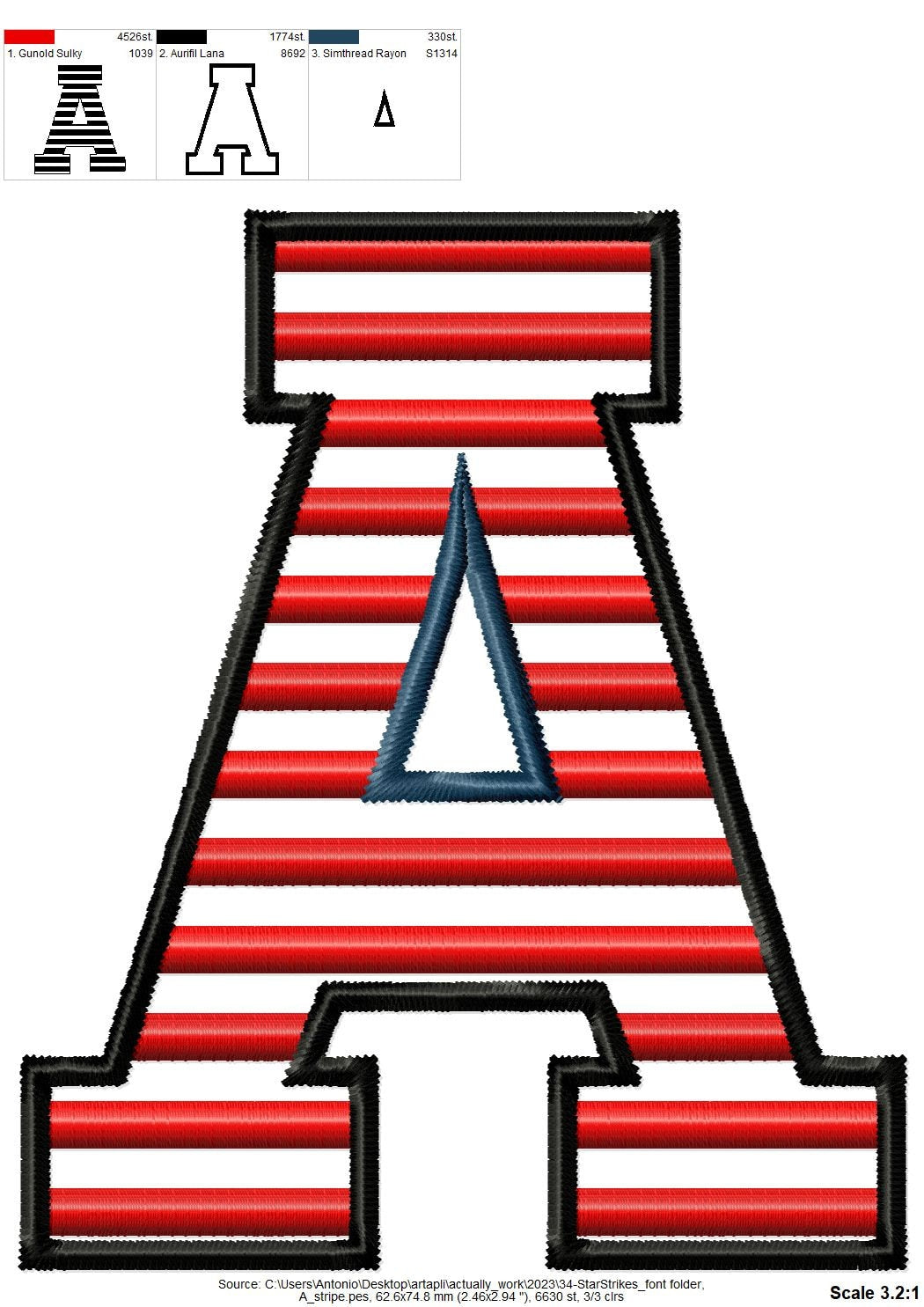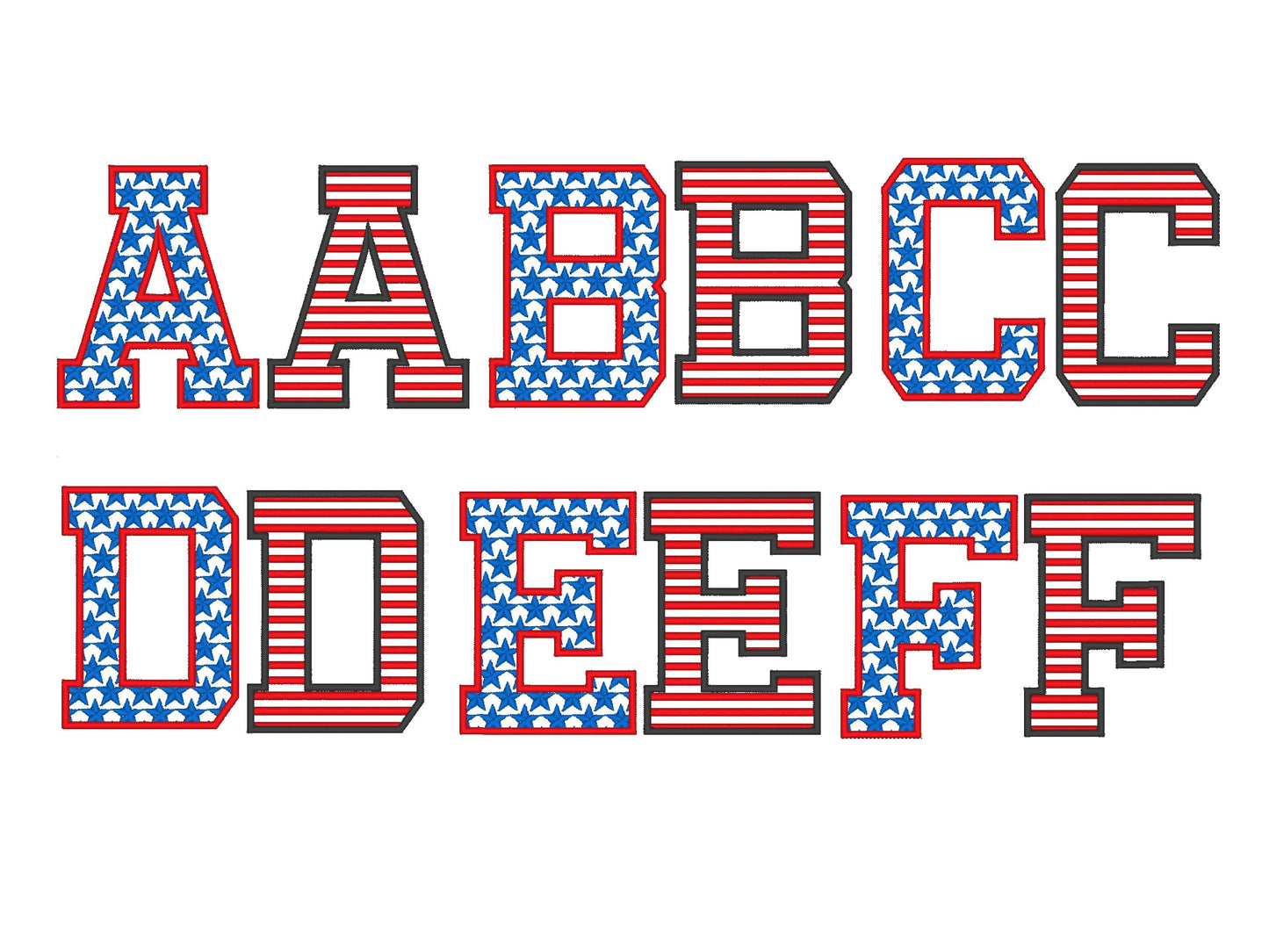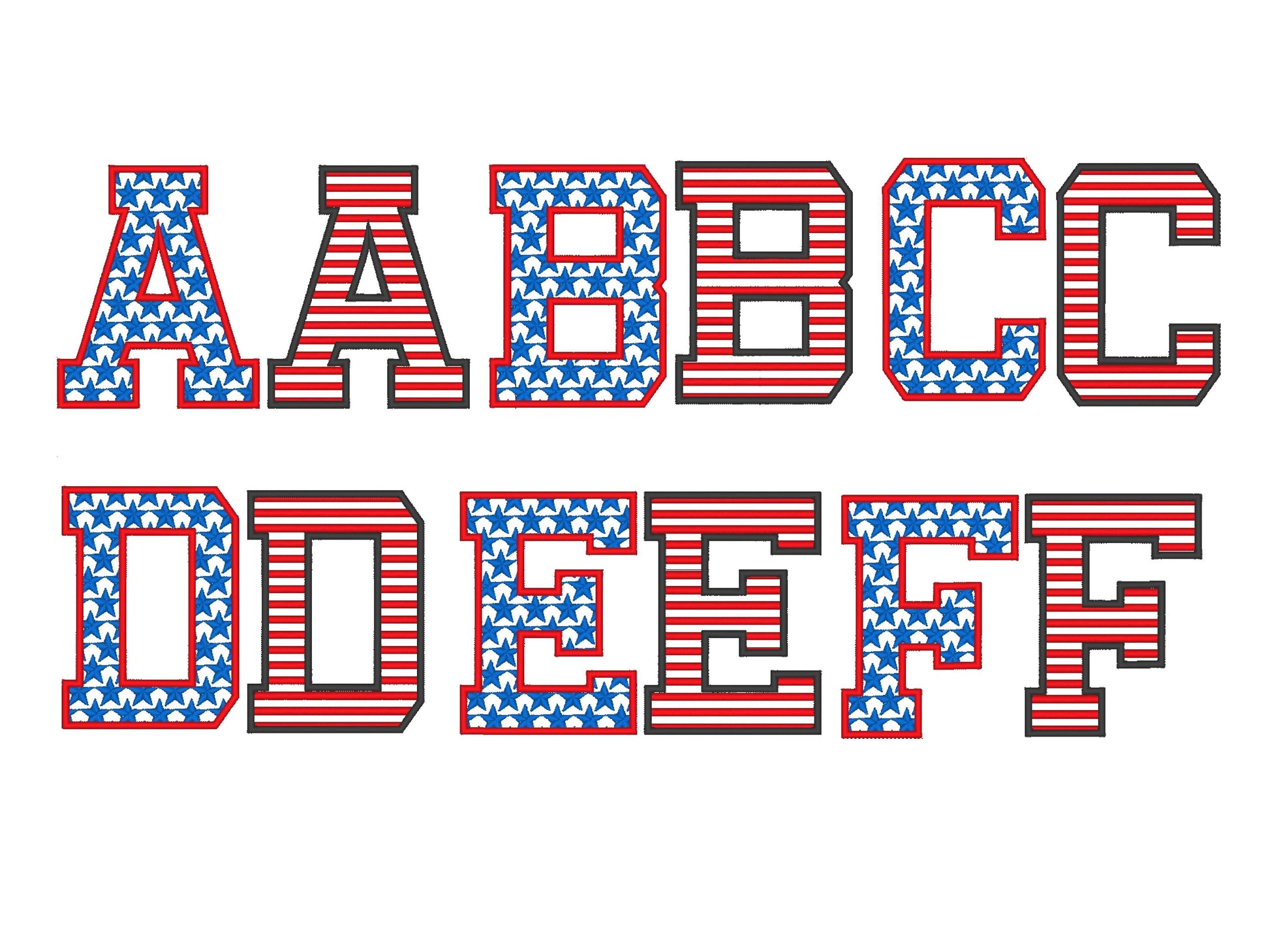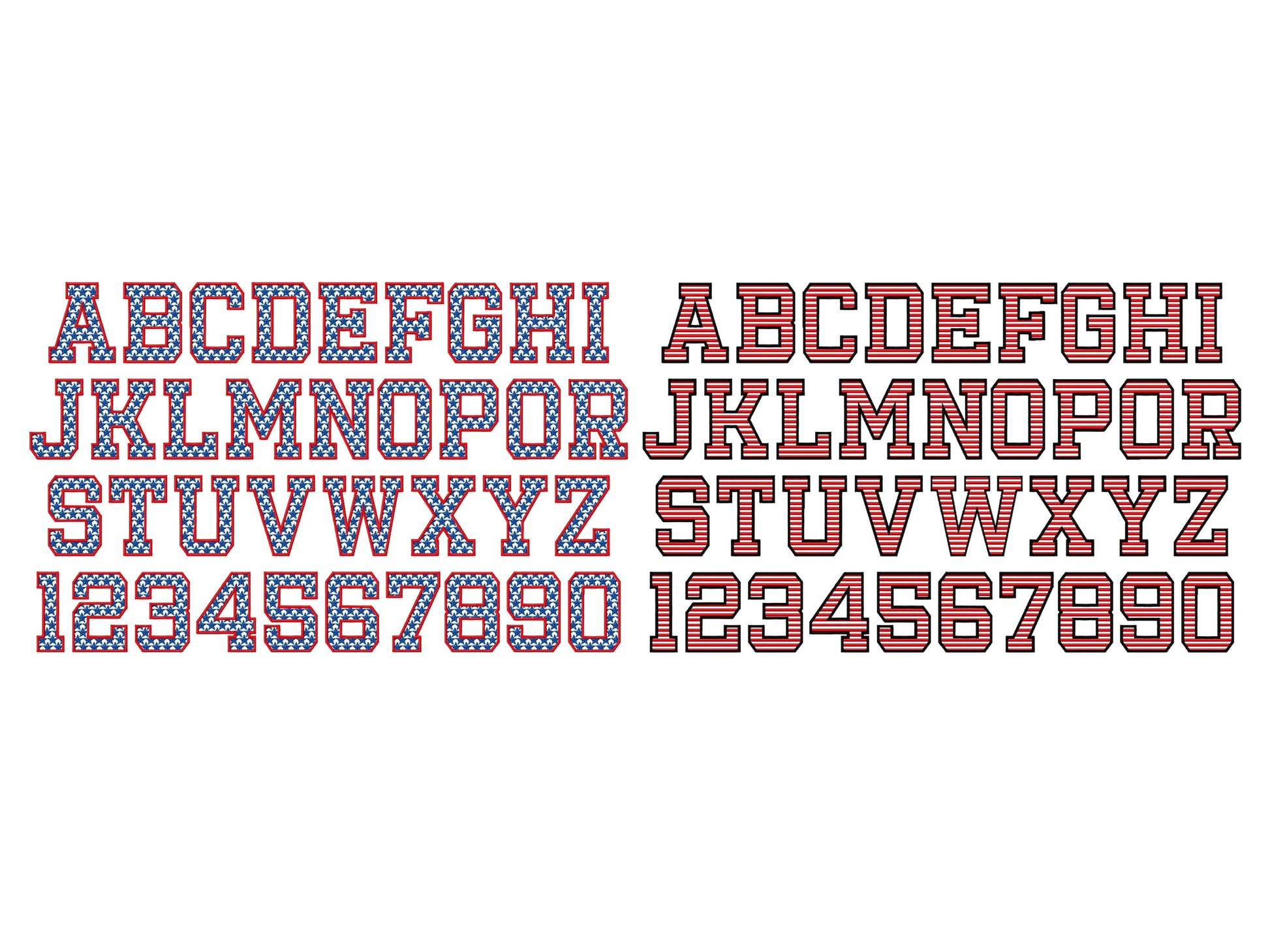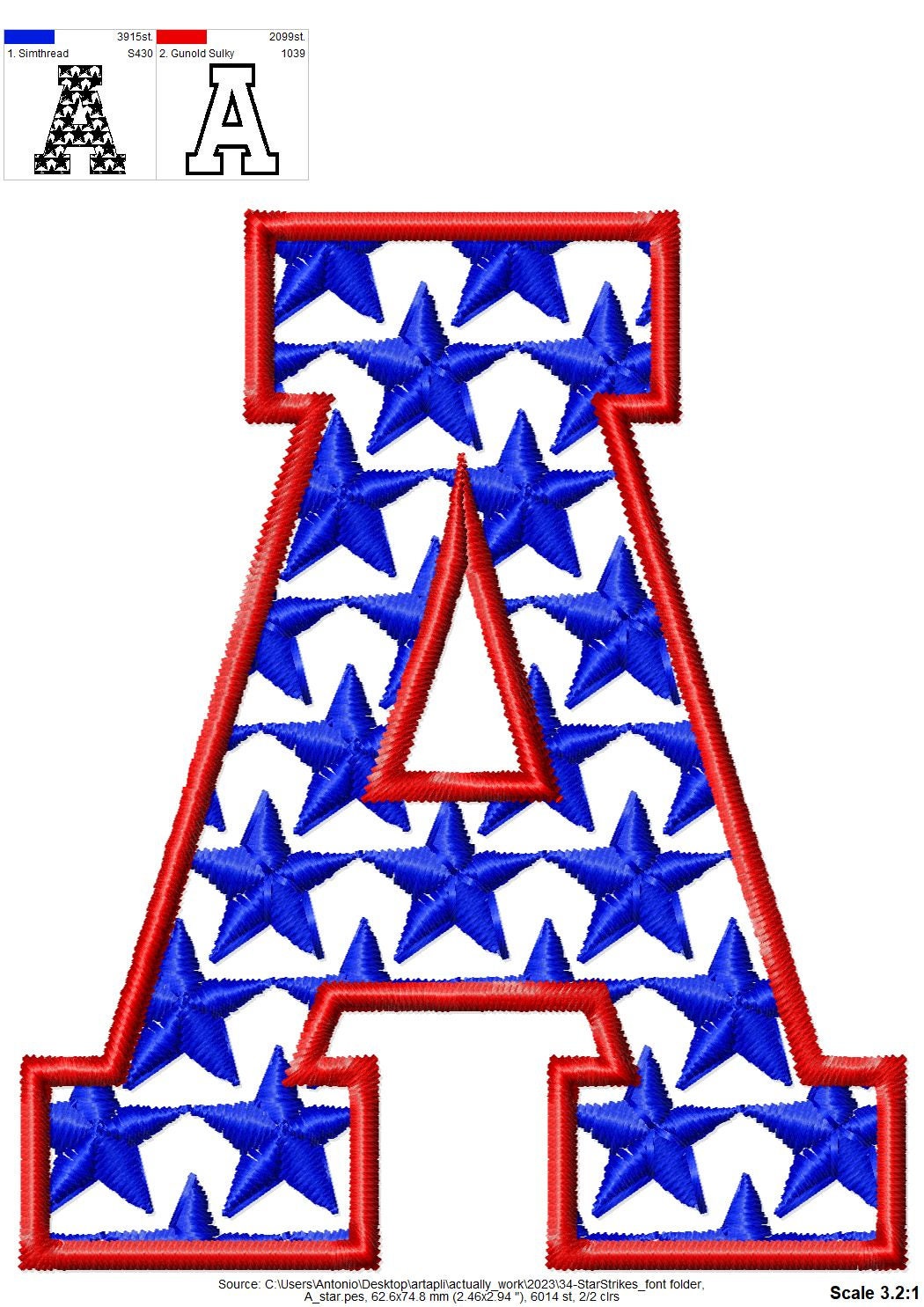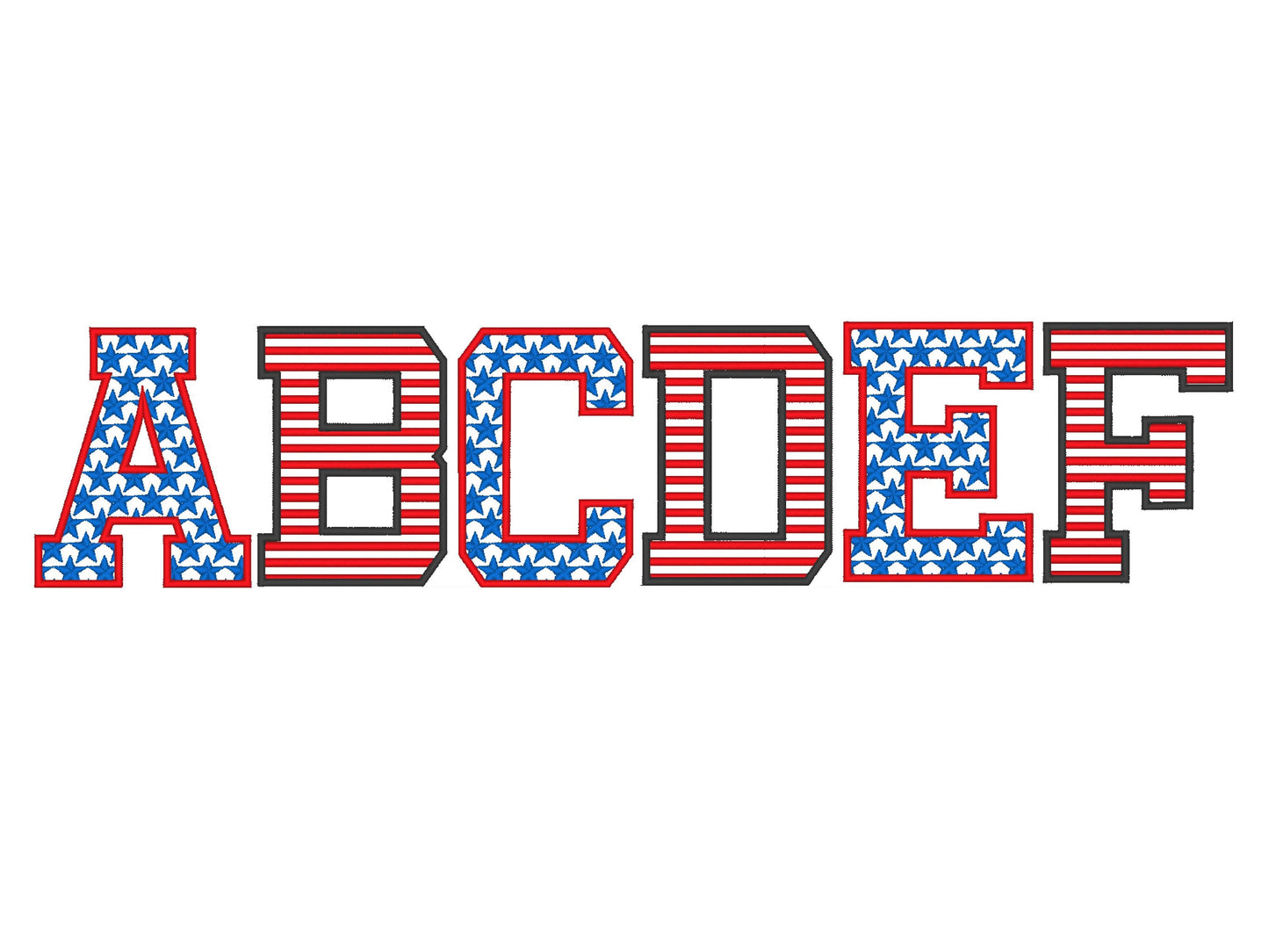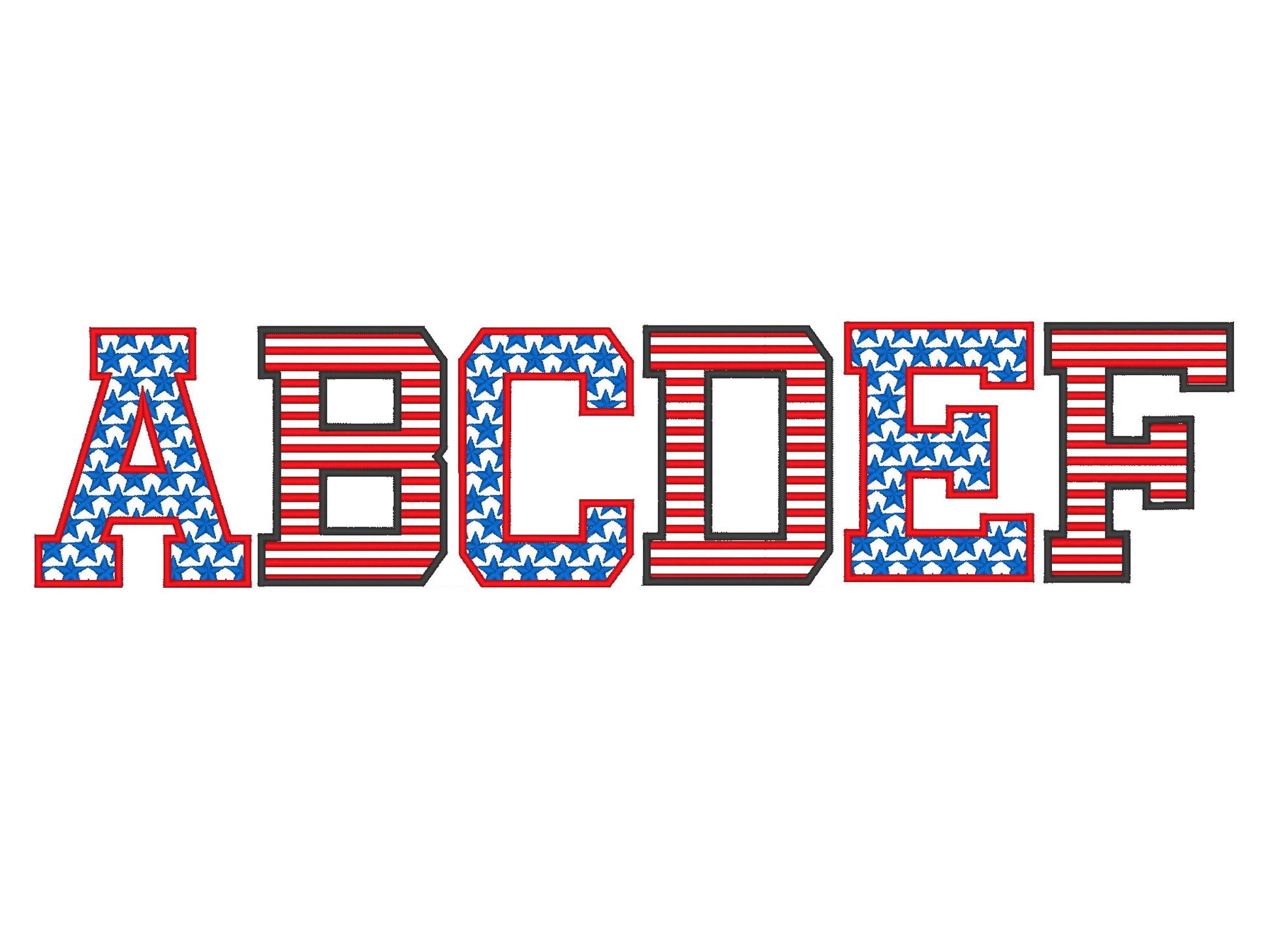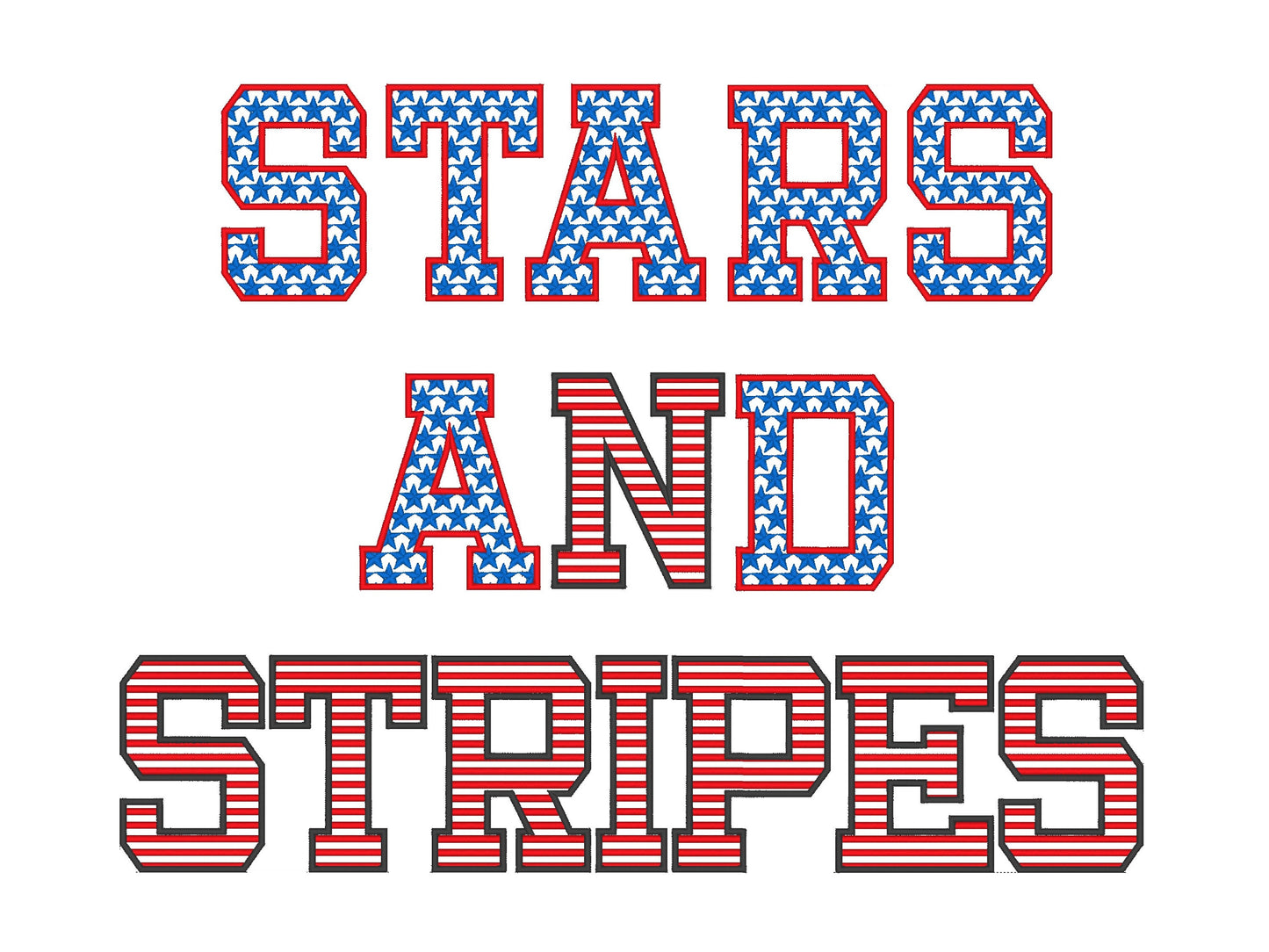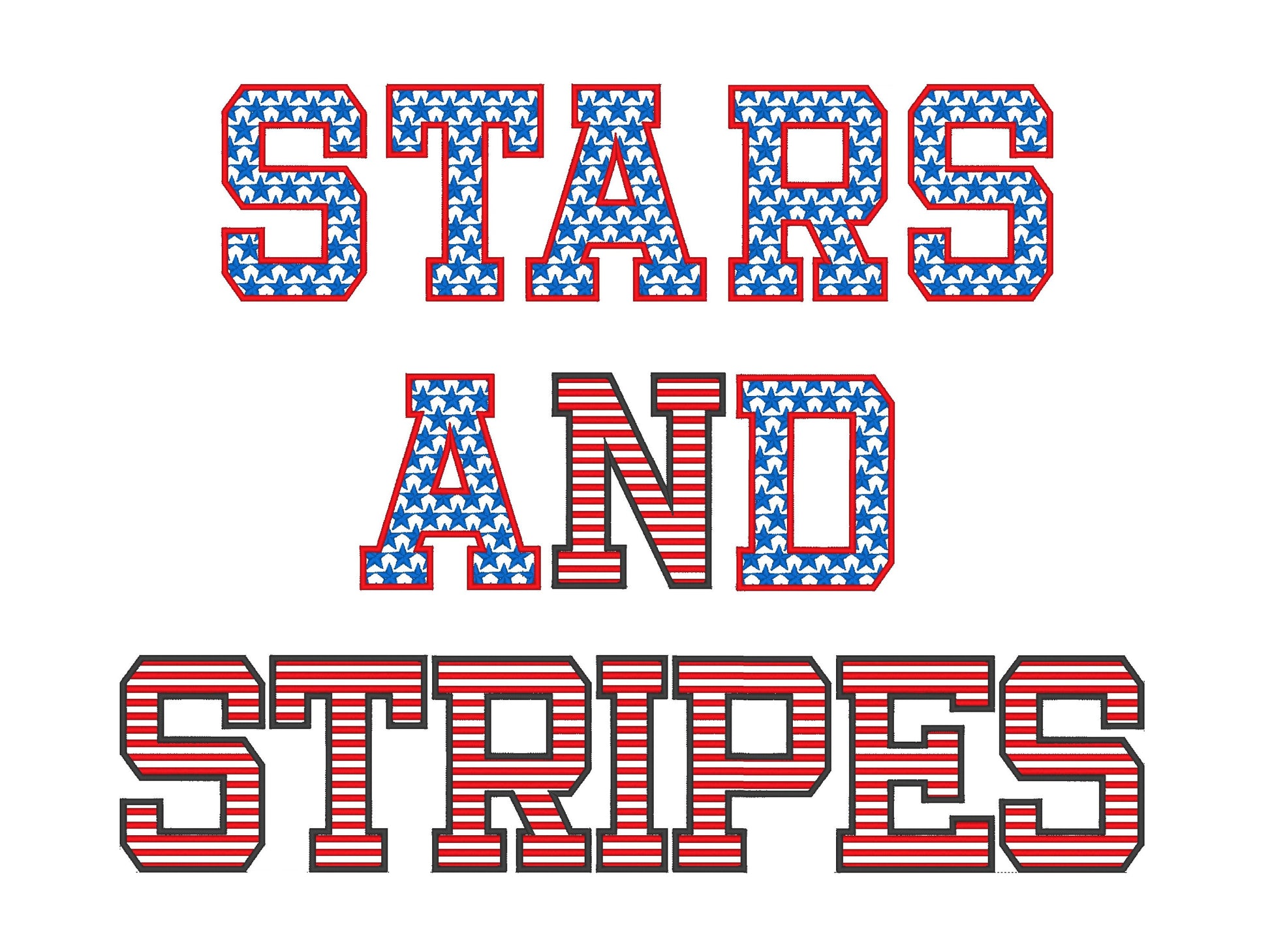
Two fonts in matching sizes, one with stars and one with stripes, to mix as you like. Each has uppercase letters A to Z and numbers 0 to 9 in six sizes: 1.5, 1.8, 2.3, 3, 3.4 and 4 inches.